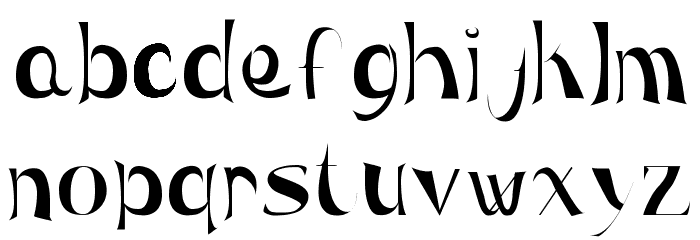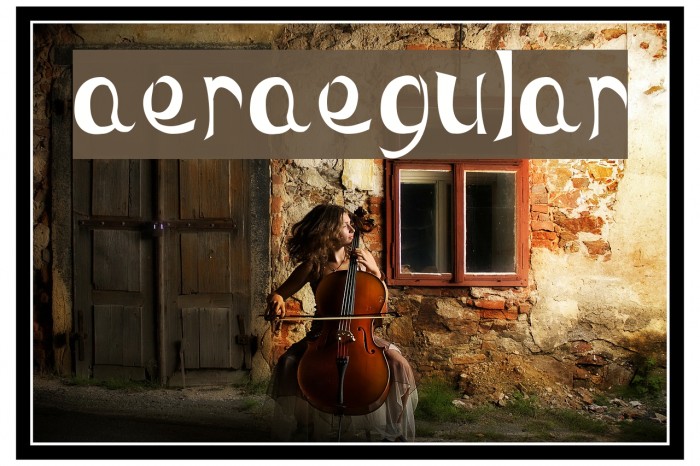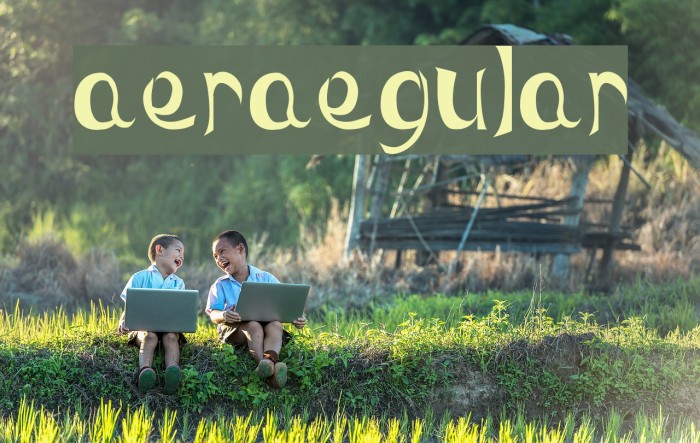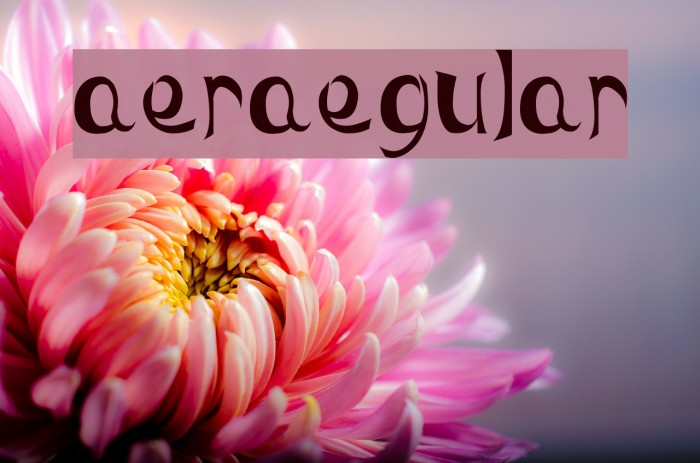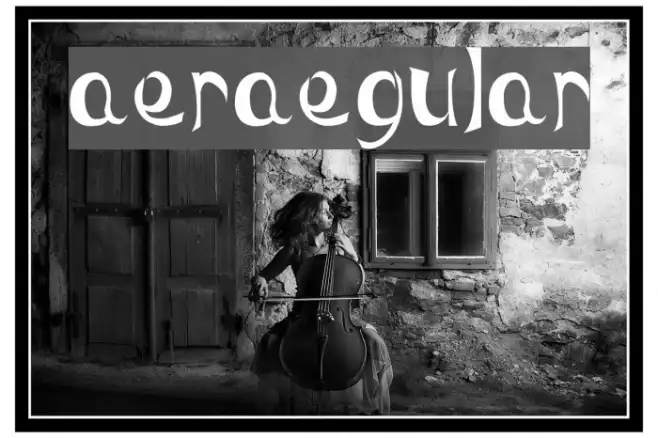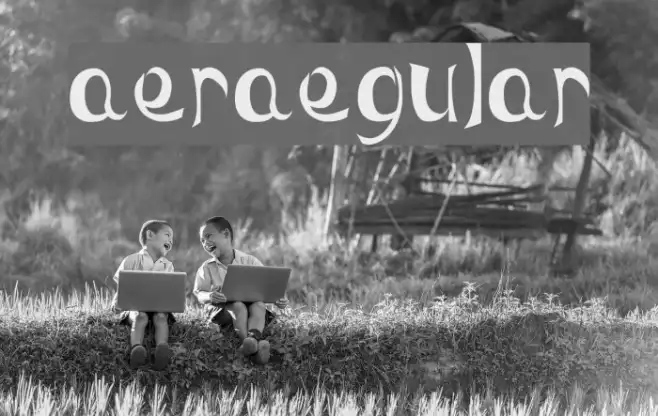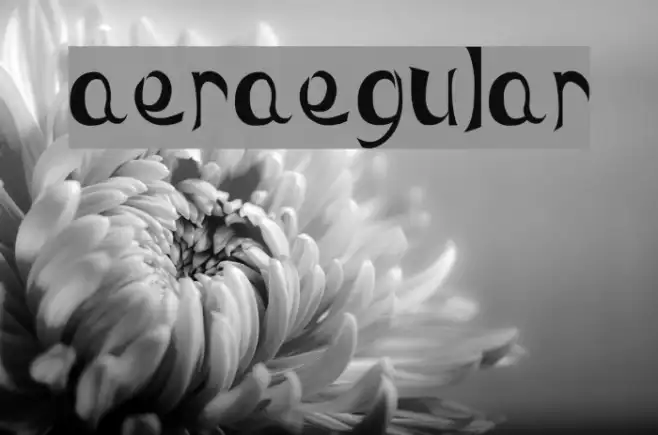
MaeraRegular Font
This font exhibits a unique and artistic style, characterized by its playful and whimsical letterforms. Each character features a distinct flair, with varying stroke thicknesses and creative serifs that give it a hand-drawn appearance. The lowercase letters have a dynamic flow, with some characters extending below the baseline, adding to its quirky charm. The overall design is both modern and decorative, making it suitable for creative projects that require a touch of individuality and flair.
A whimsical and artistic font with playful, hand-drawn letterforms.
- Proposed Projects: Ideal for creative projects such as children's book covers, artistic posters, branding for quirky products, and unique invitations.
- Use Case: Logos, Headlines, Artistic projects